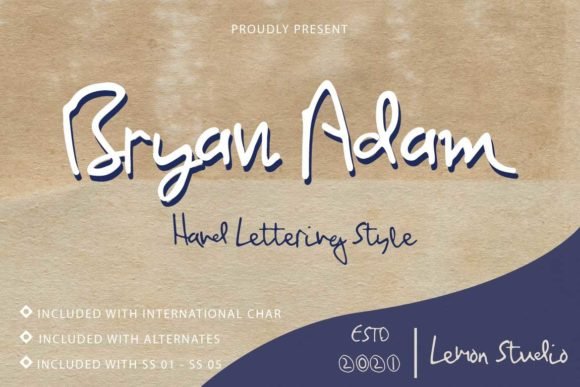
Introduction to Bryan Adam Font
Bryan Adam is a lovely and delicate script font that exudes elegance and class.
This font was particularly crafted for those who need a beautiful and refreshing look to their designs .
Key Features of Bryan Adam Font
Why Choose Bryan Adam Font?
Bryan Adam Font offers exceptional quality and versatility, making it a valuable addition to your design toolkit. Whether you’re creating for personal projects or commercial use, Bryan Adam Font delivers professional results.